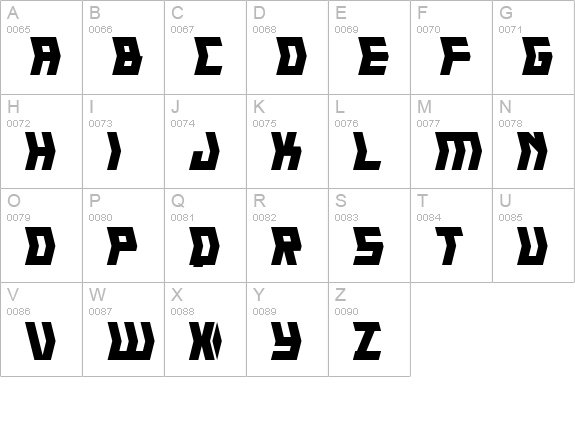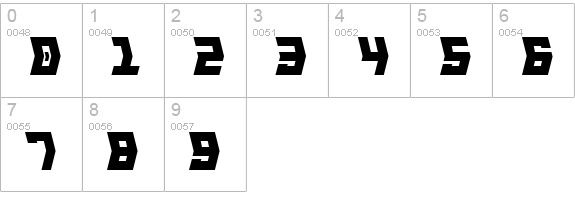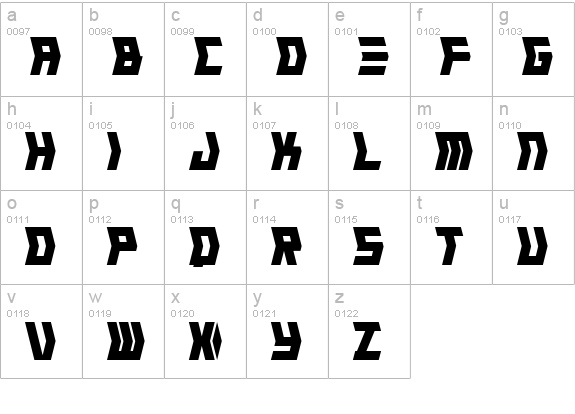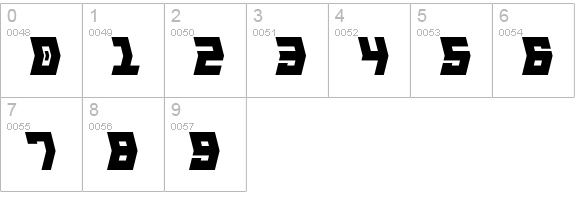
Crank Font Details
Introducing Crank font, a modern and stylish typeface that is perfect for various design projects. With its sleek and clean lines, Crank font exudes a contemporary vibe that will elevate any design it is used in. Whether you are creating branding materials, posters, or website designs, Crank font is sure to make a statement. The best part about Crank font is that it is completely free to download at FontsMarket.com. Yes, you read that right - this high-quality font can be yours at no cost, allowing you to add a touch of sophistication to your projects without breaking the bank. Don't miss out on the opportunity to enhance your designs with Crank font - download it today and start creating beautiful and impactful visuals!